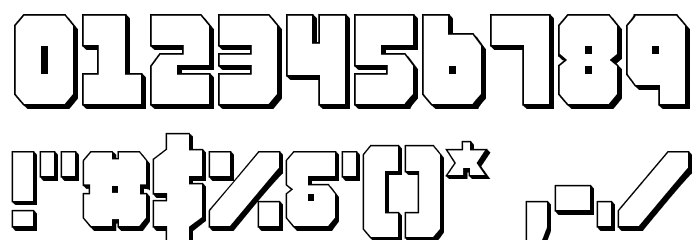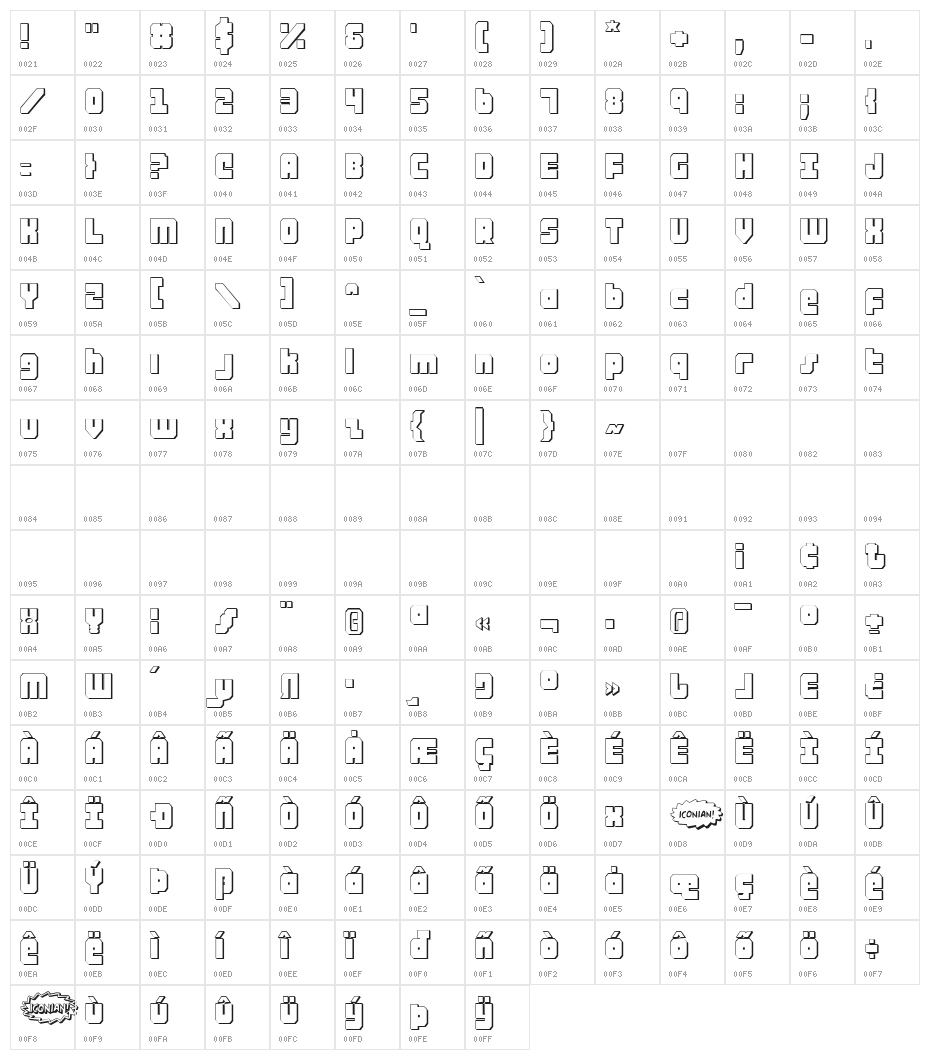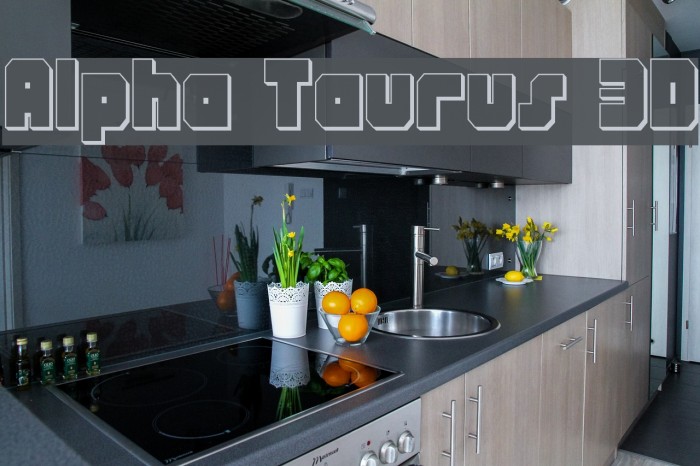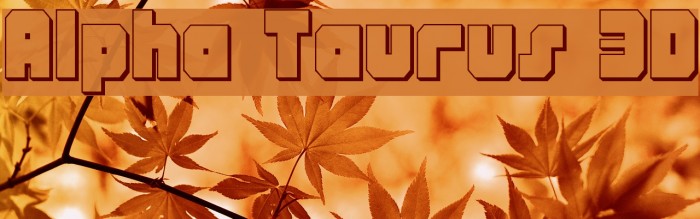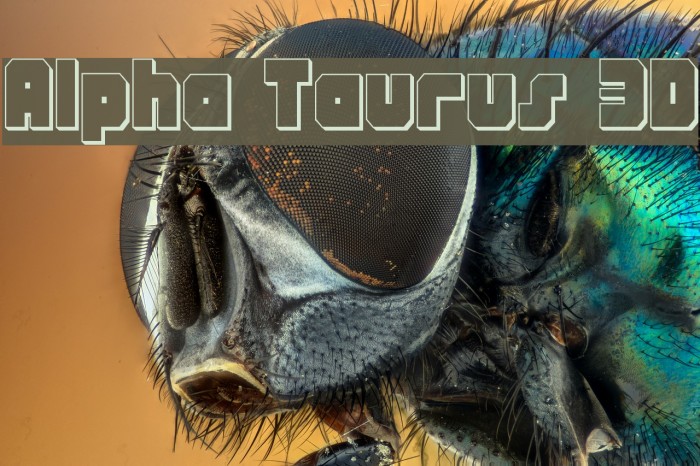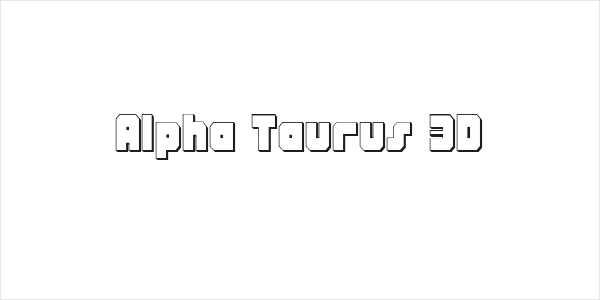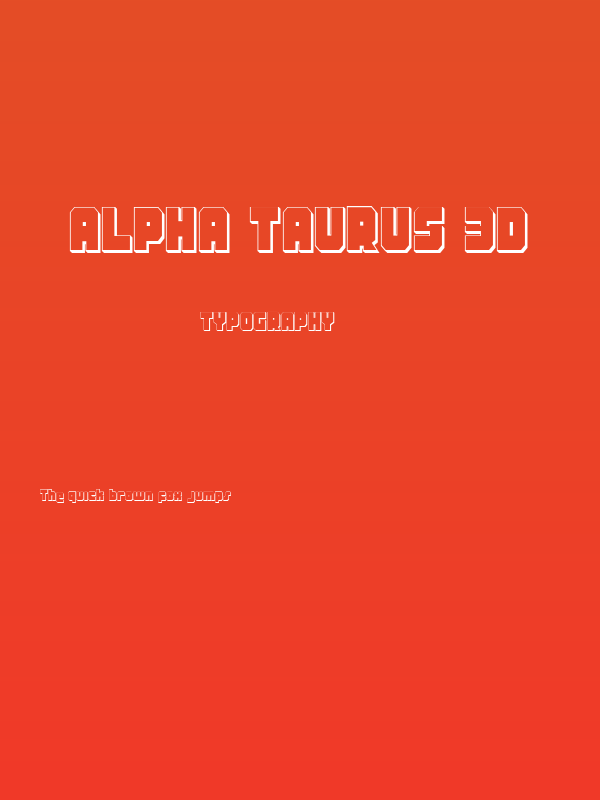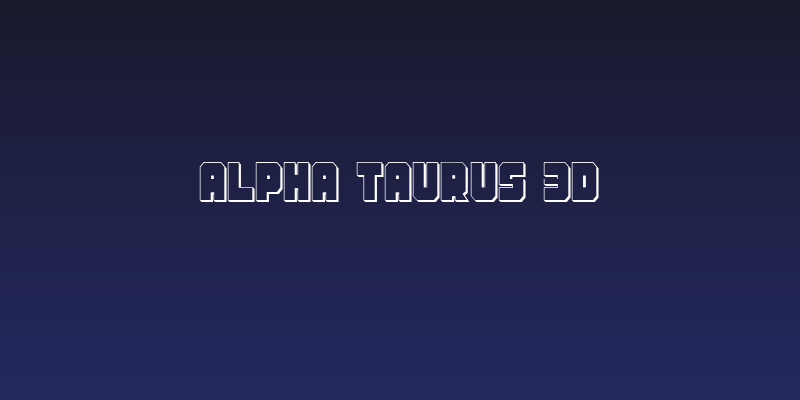
Alpha Taurus 3D Font
Alpha Taurus 3D Description
This font features a bold, three-dimensional design with a blocky, geometric structure. Each character is outlined with a thick border, creating a striking 3D effect that makes the letters appear to pop off the page. The uppercase and lowercase letters maintain a consistent style, with sharp angles and straight lines that give the font a modern and futuristic appearance. The numerals and special characters are designed with the same bold, outlined style, ensuring uniformity across all glyphs. This font is ideal for projects that require a strong visual impact and a contemporary aesthetic.